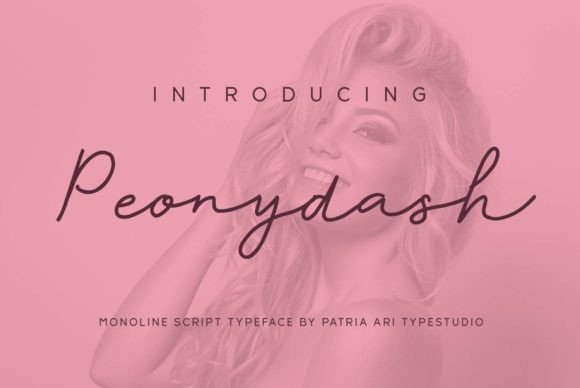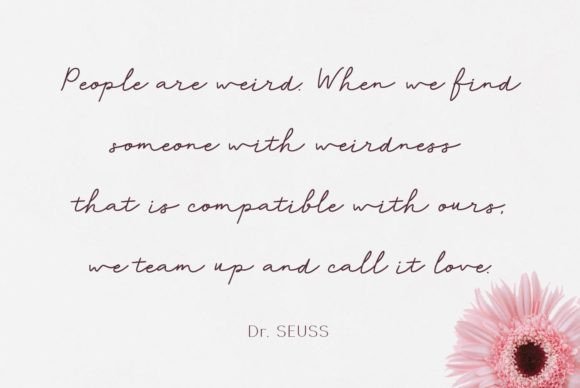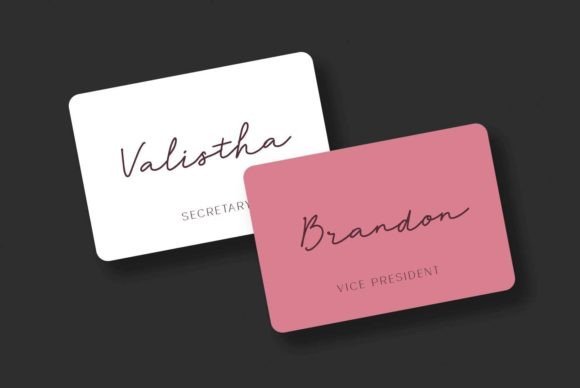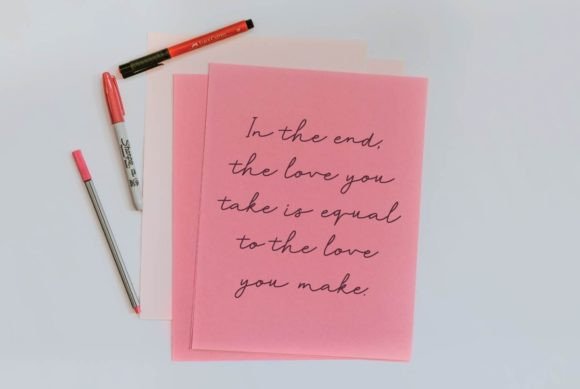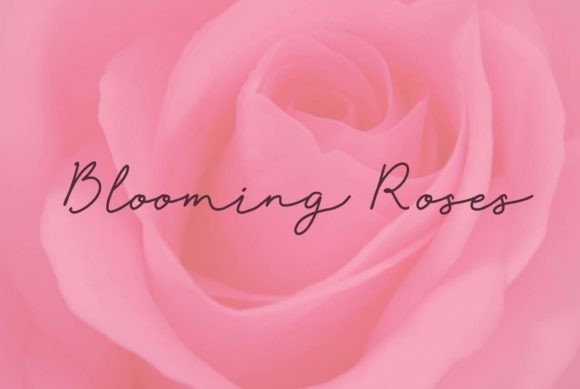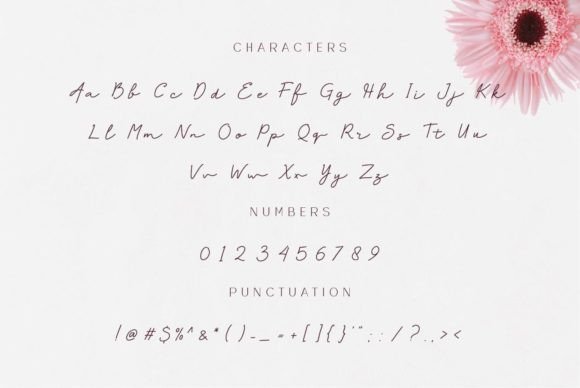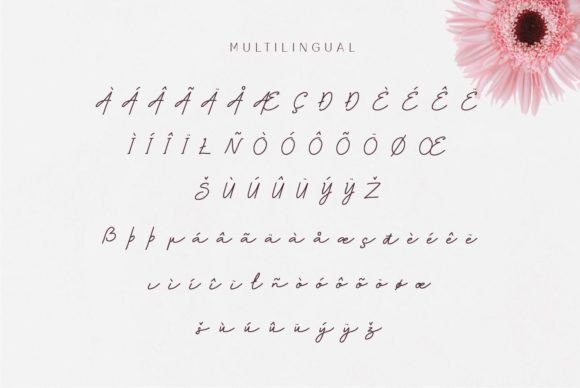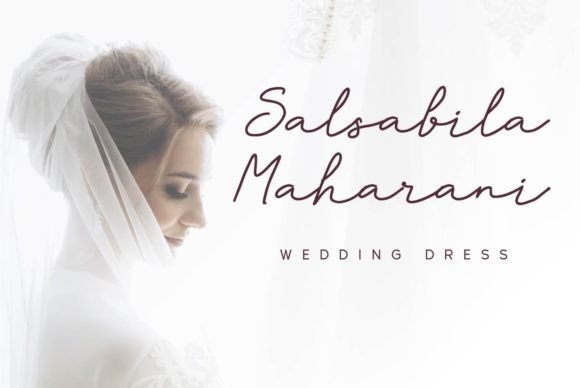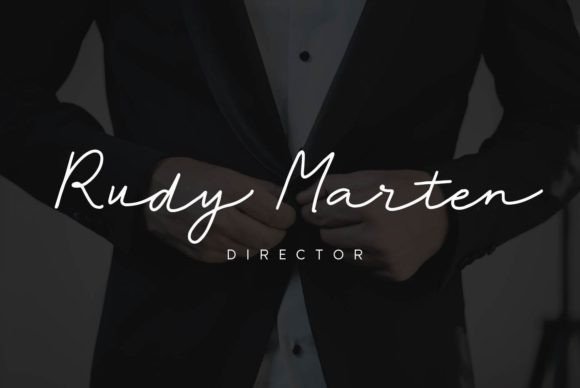
Peonydash Font
About Peonydash Font
“Peonydash” is a delicate and well-rounded handwritten font, thoughtfully designed for crafty projects that require authentic typography. Versatile in its application, this font is particularly well-suited for a range of creative endeavors, including wedding invitations, birthday cards, personal branding, elegant logos, and more. By integrating “Peonydash” into your designs, you can be confident that your creations will stand out with a touch of authenticity and charm.
The delicate and well-rounded qualities of “Peonydash” make it a versatile choice for various projects. Its handwritten style adds a personal and human touch, making it ideal for conveying warmth and authenticity in your designs.
Whether you’re working on wedding invitations that call for an elegant and personalized feel, designing birthday cards with a crafty touch, or establishing a personal brand identity, “Peonydash” can serve as the typography solution that brings uniqueness to your projects.
The authentic typography of “Peonydash” contributes to creating a distinctive visual language. Its well-rounded and balanced design ensures that the font complements a variety of design elements, allowing it to seamlessly integrate into different contexts.
In summary, “Peonydash” is more than just a font; it’s a versatile and expressive tool that can enhance your crafty projects. Utilize it for its delicate and well-rounded handwritten style to add authenticity and charm to your designs, making them stand out with an elegant and appealing touch.